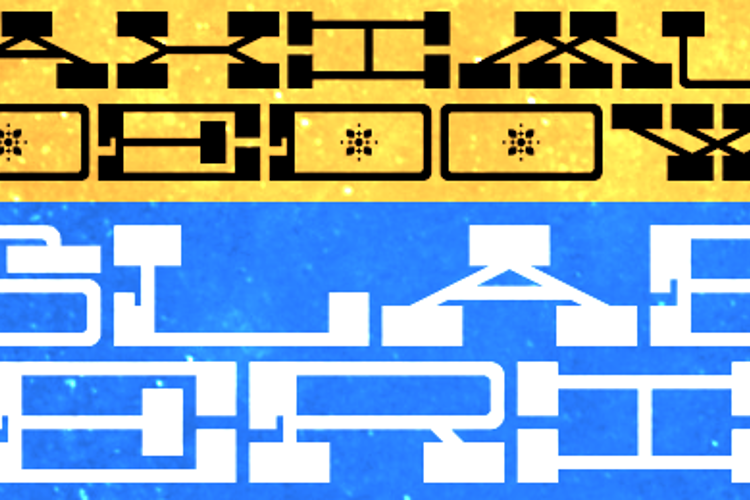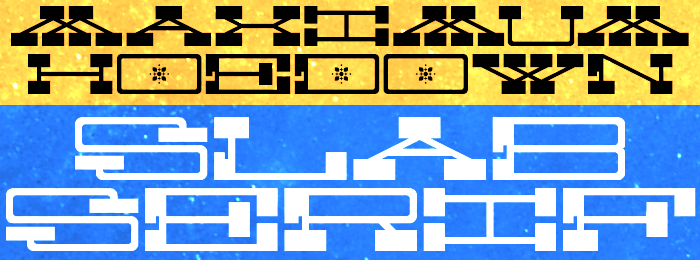
Maximum Hoedown Font
by Pixel Kitchen
About Maximum Hoedown Font
Experimental slab-serif. Despite what you may have heard, a "hoedown" is just a party. :D